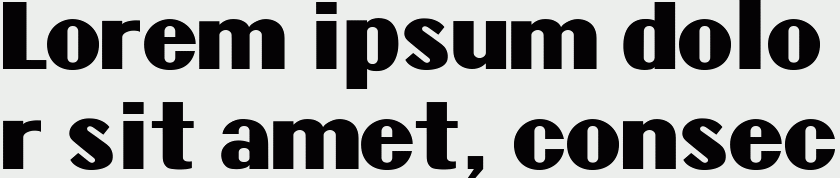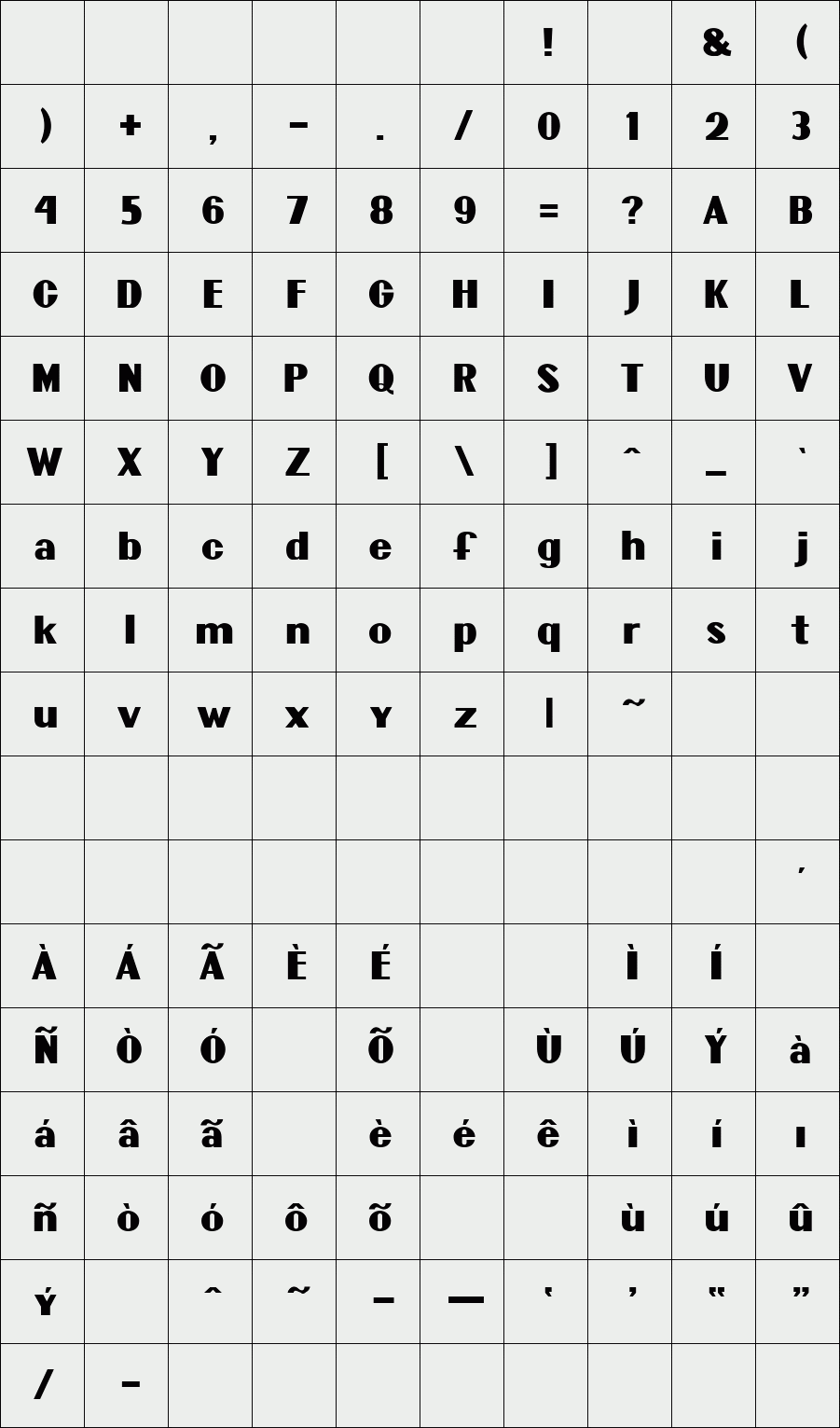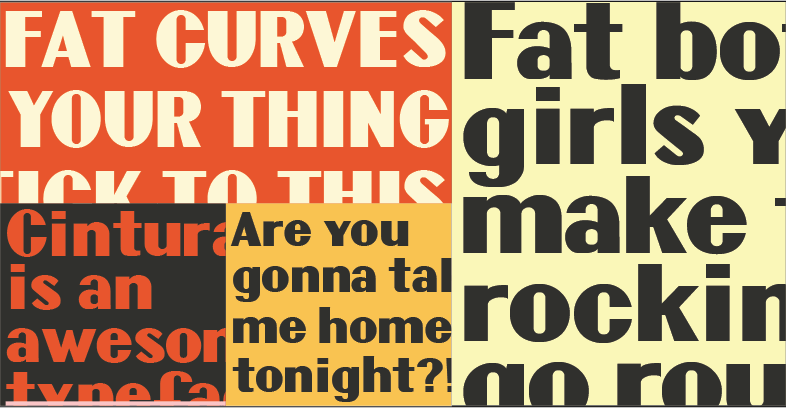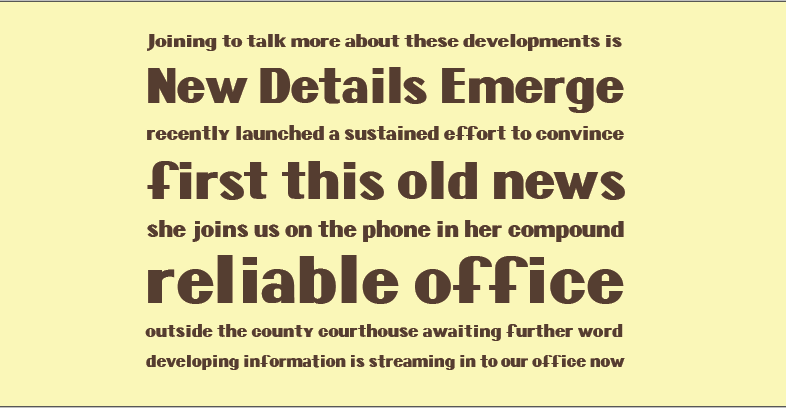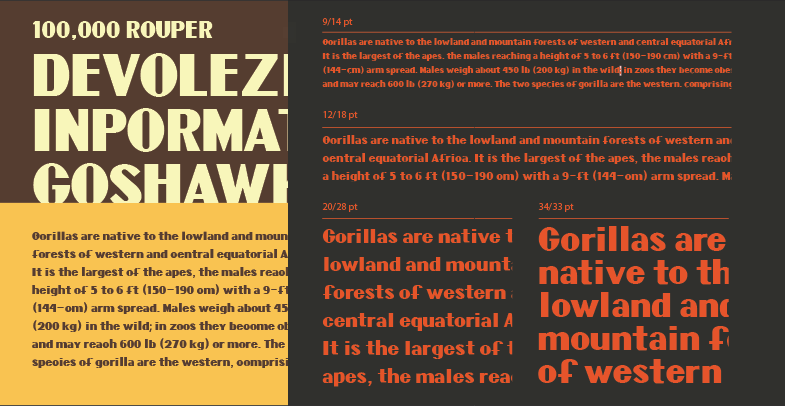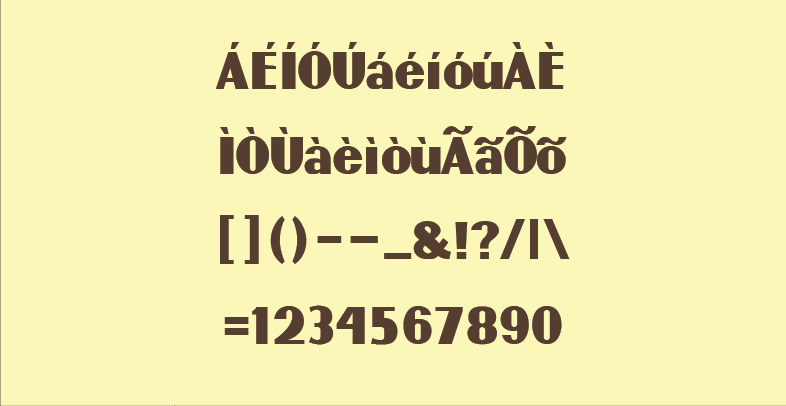
Cintura Sans
Cintura is a Sans-serif that works great for display purposes! Fat and salient, it will give your headlines and titles all the juice they were missing, and turn every head in the room.